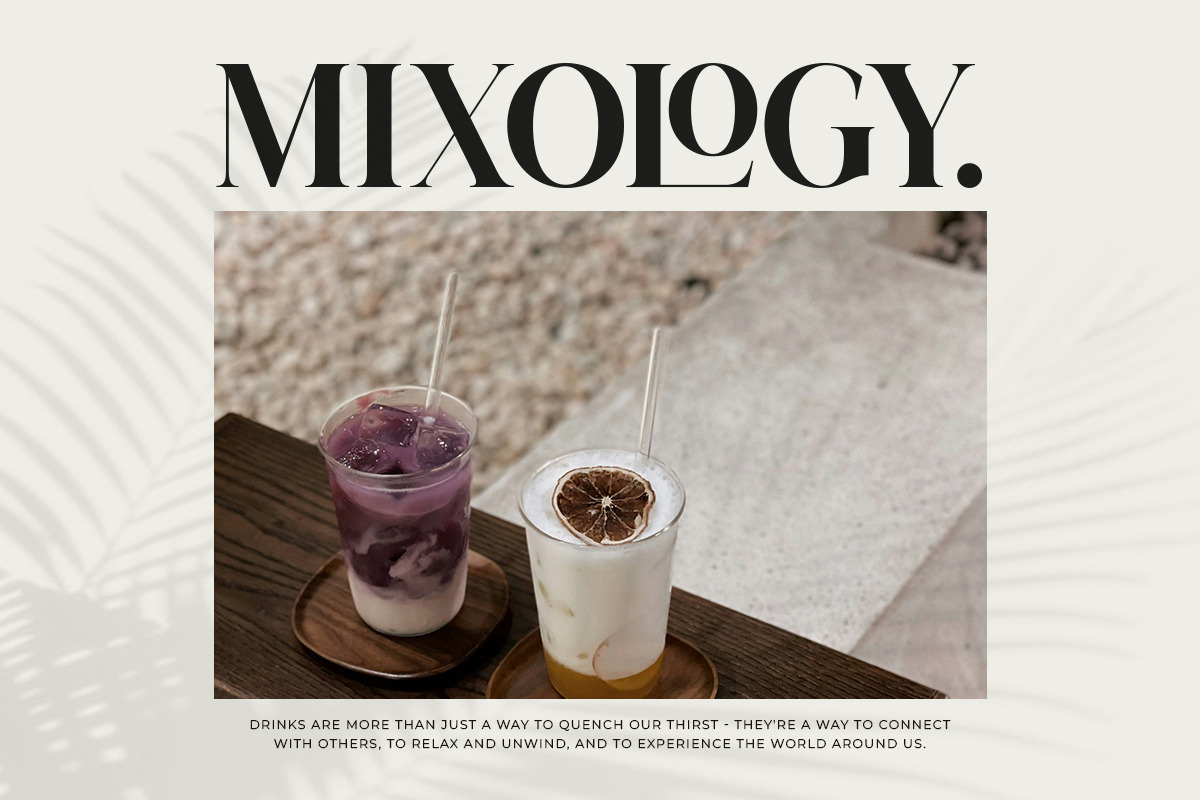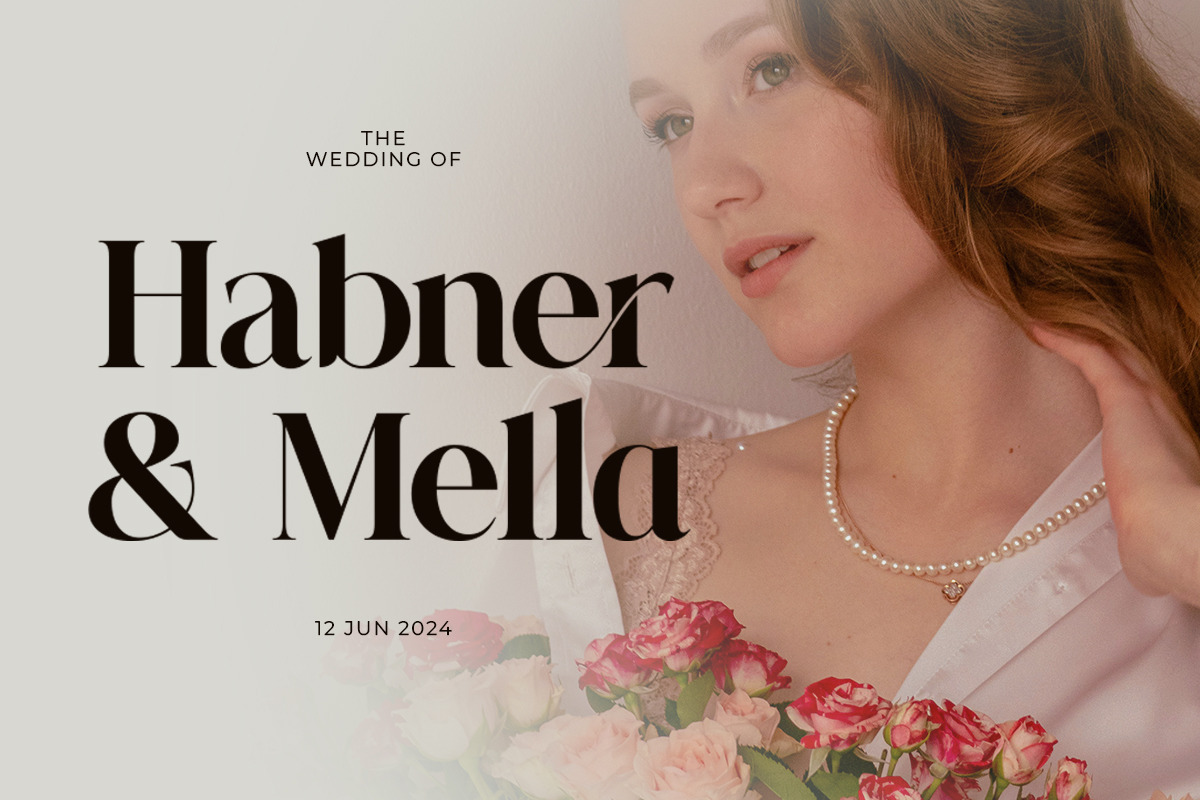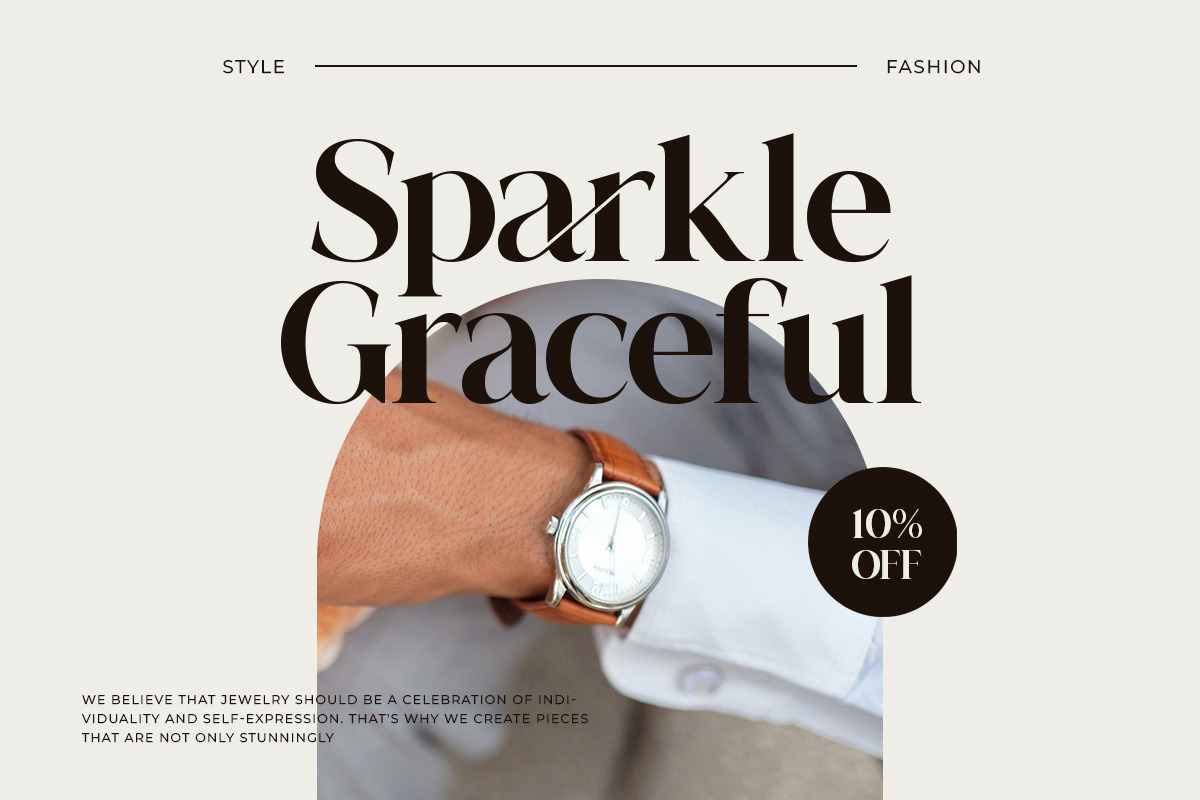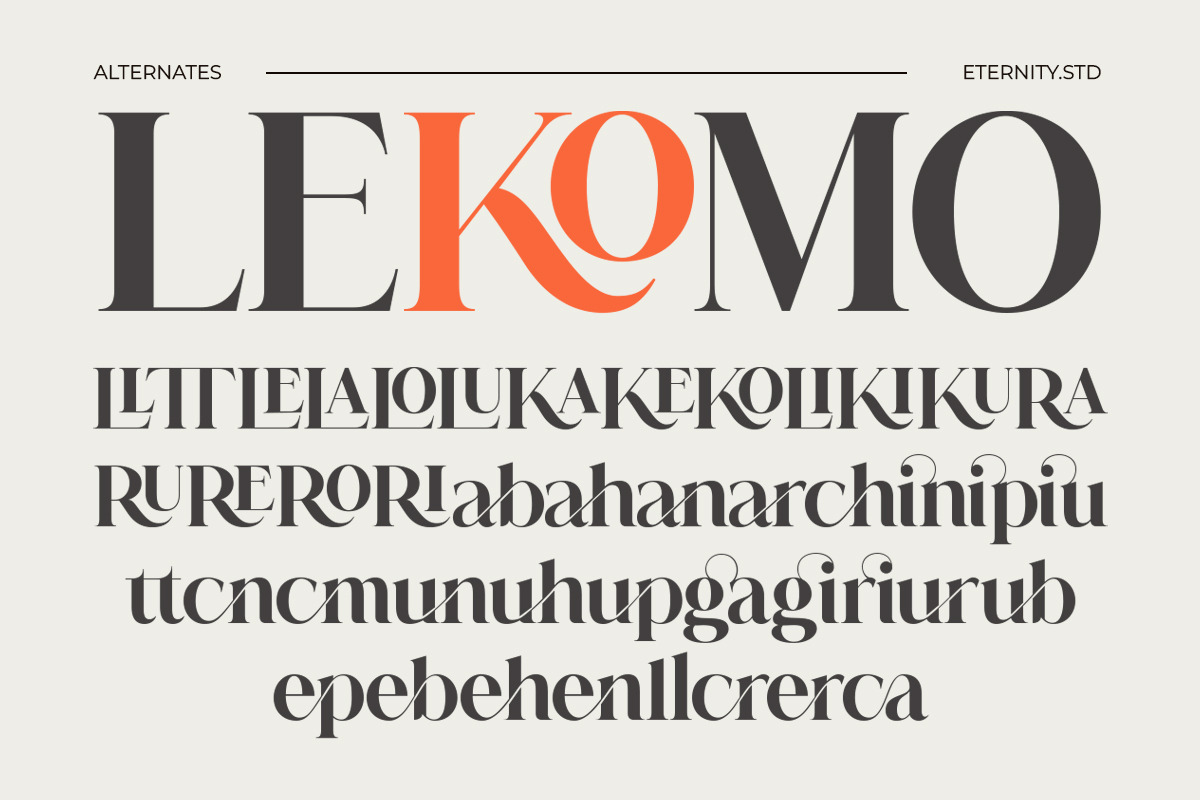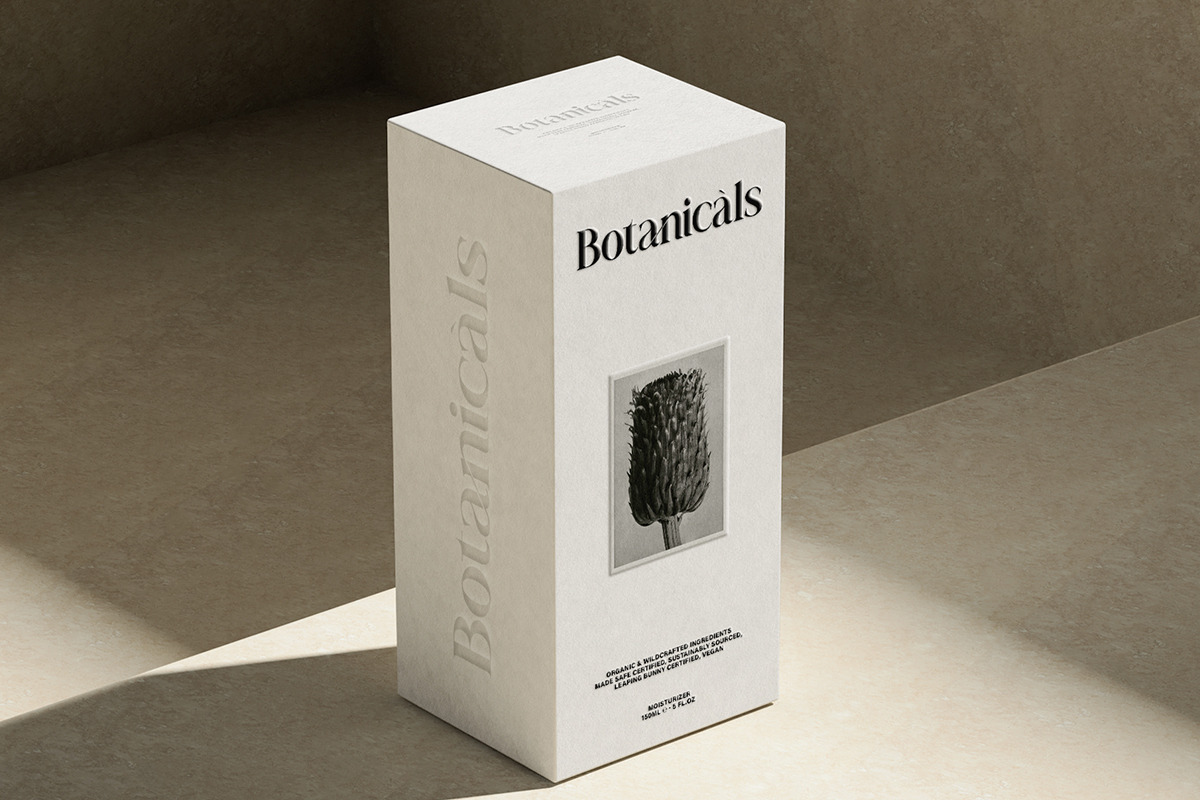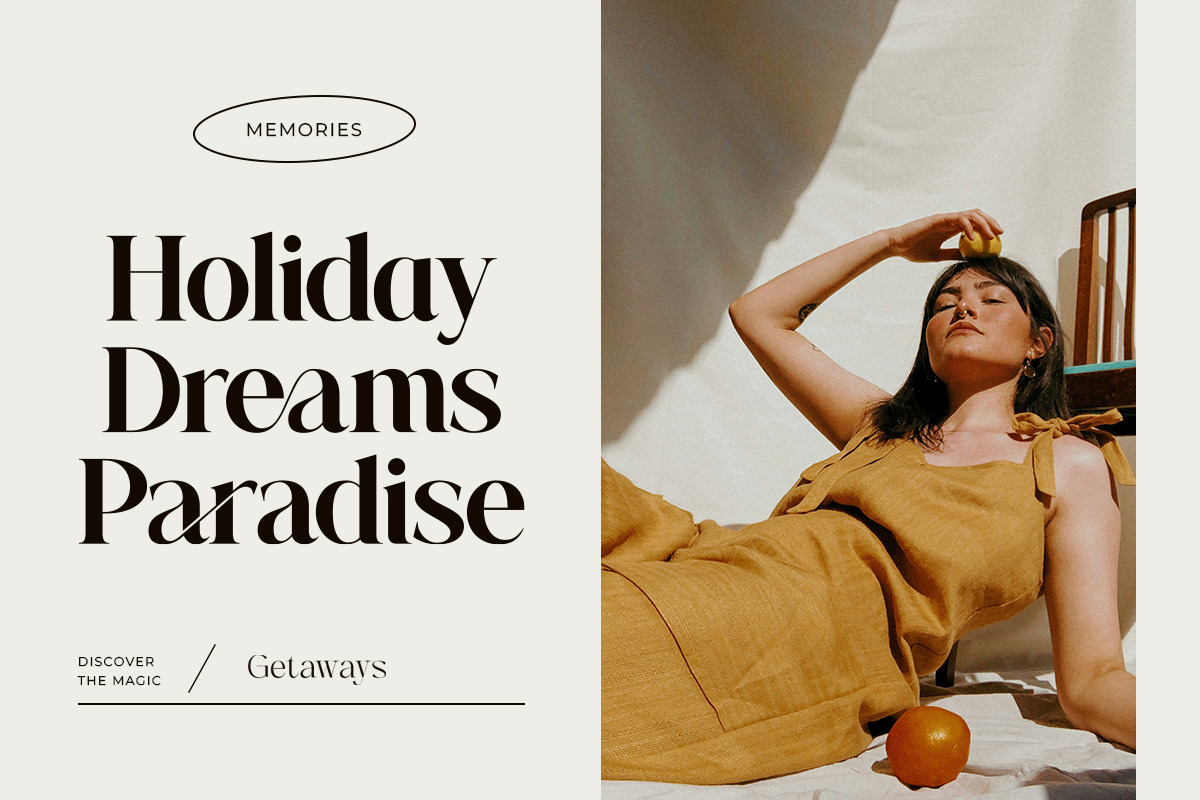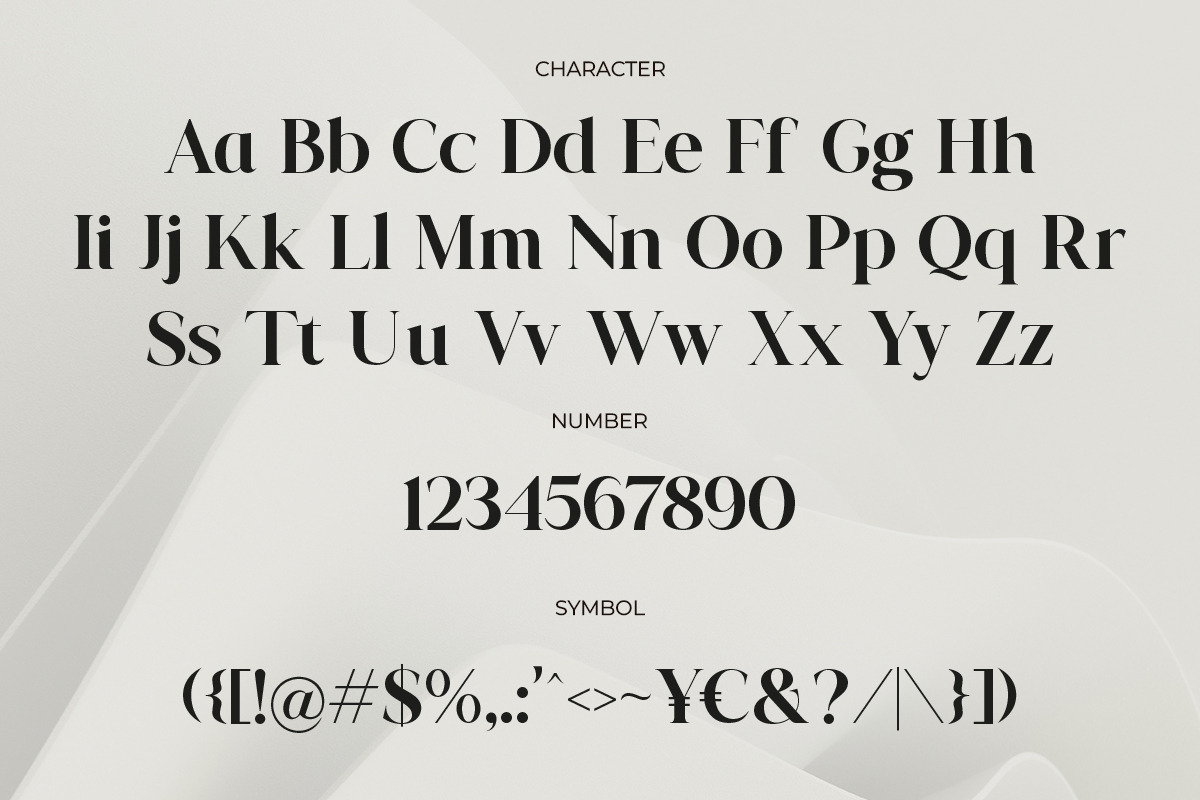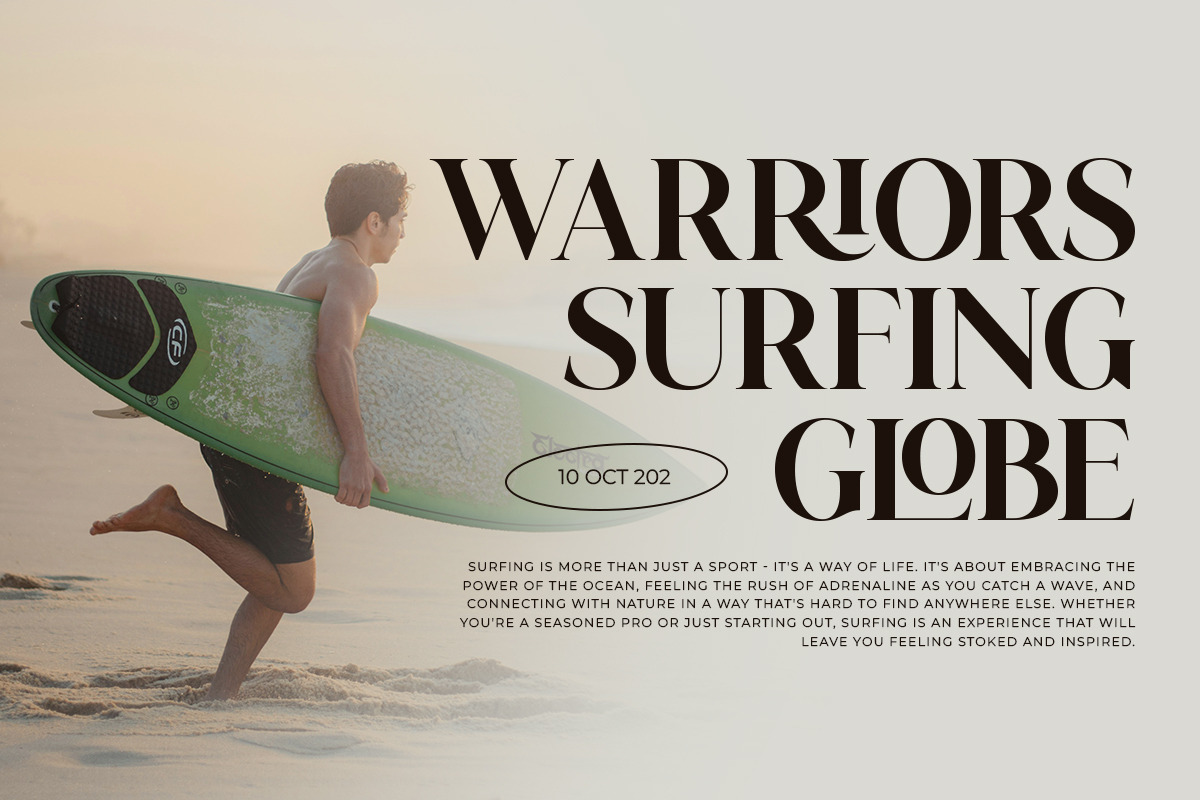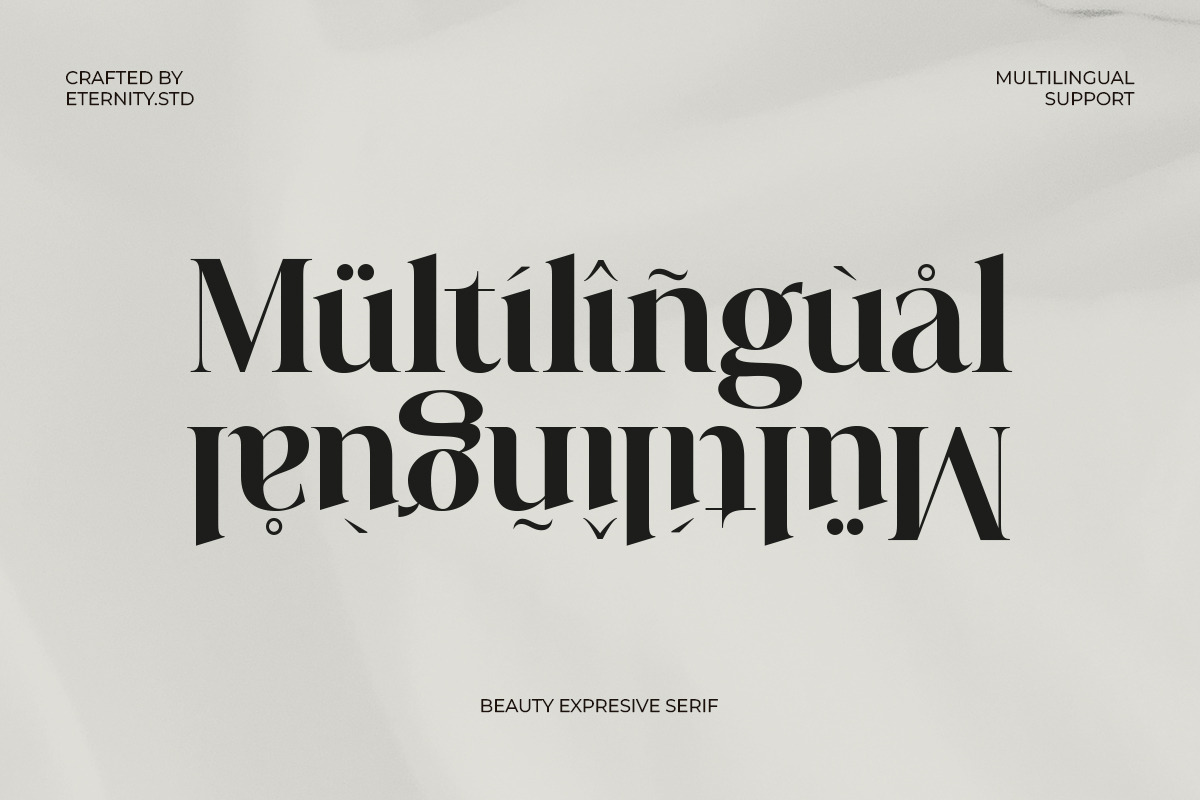
Sandria Beauty Serif
Introducing the Sandria Beauty Serif! This font isn't just about style—it's about making your designs luxury with elegance. With its sleek alternates and graceful ligatures, Sandria is perfect for all your graphic design needs. Whether you're crafting a logo, designing a poster, or creating a stunning website, this font delivers.
Ensuring compatibility across platforms. Plus, it's multilingual-friendly, so no matter which language you're working with, Sandria has your back.